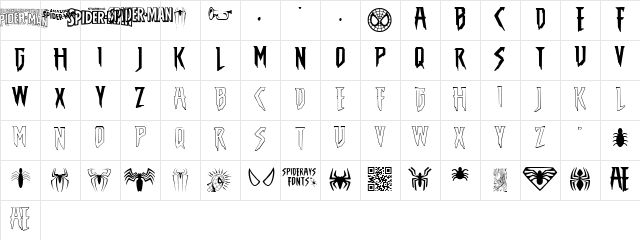
Complete THE AMAZING SPIDER-MAN Regular glyph index. Displaying only characters natively supported by THE AMAZING SPIDER-MAN Regular font.
THE AMAZING SPIDER-MAN is a composed and adaptable typeface that performs quietly and consistently across a wide range of design contexts.